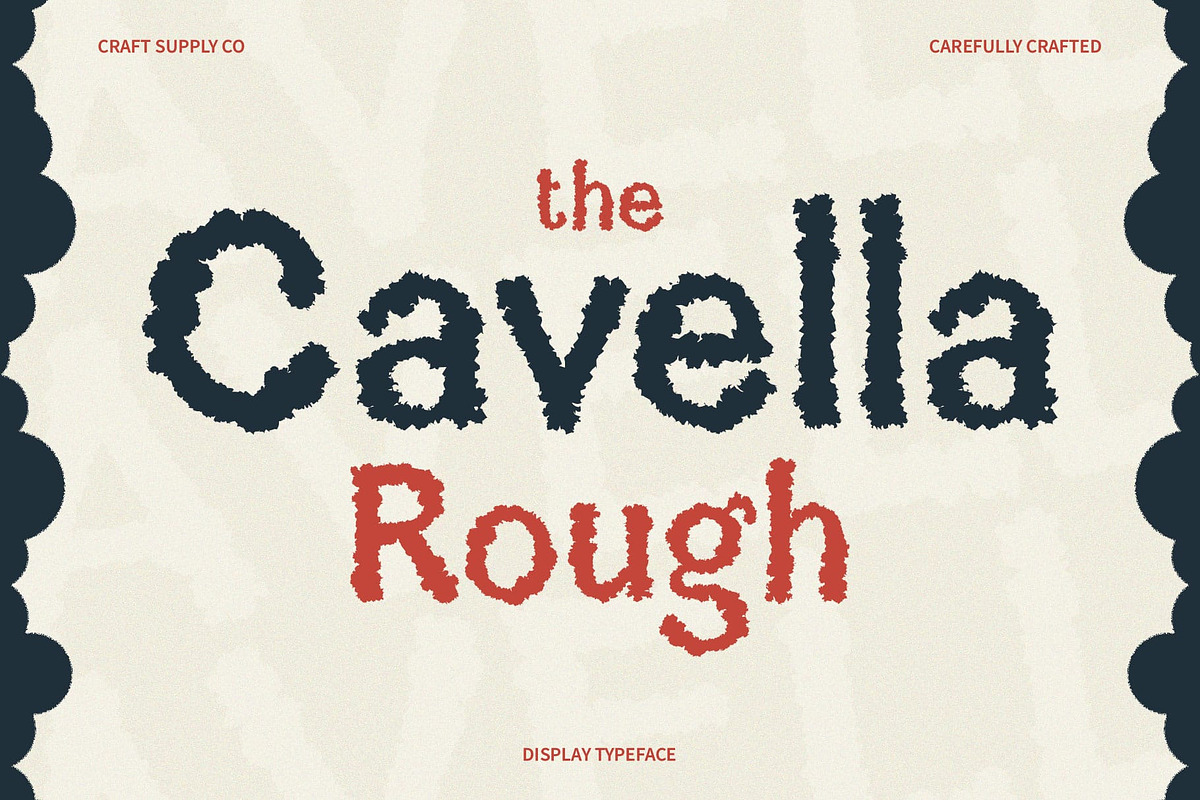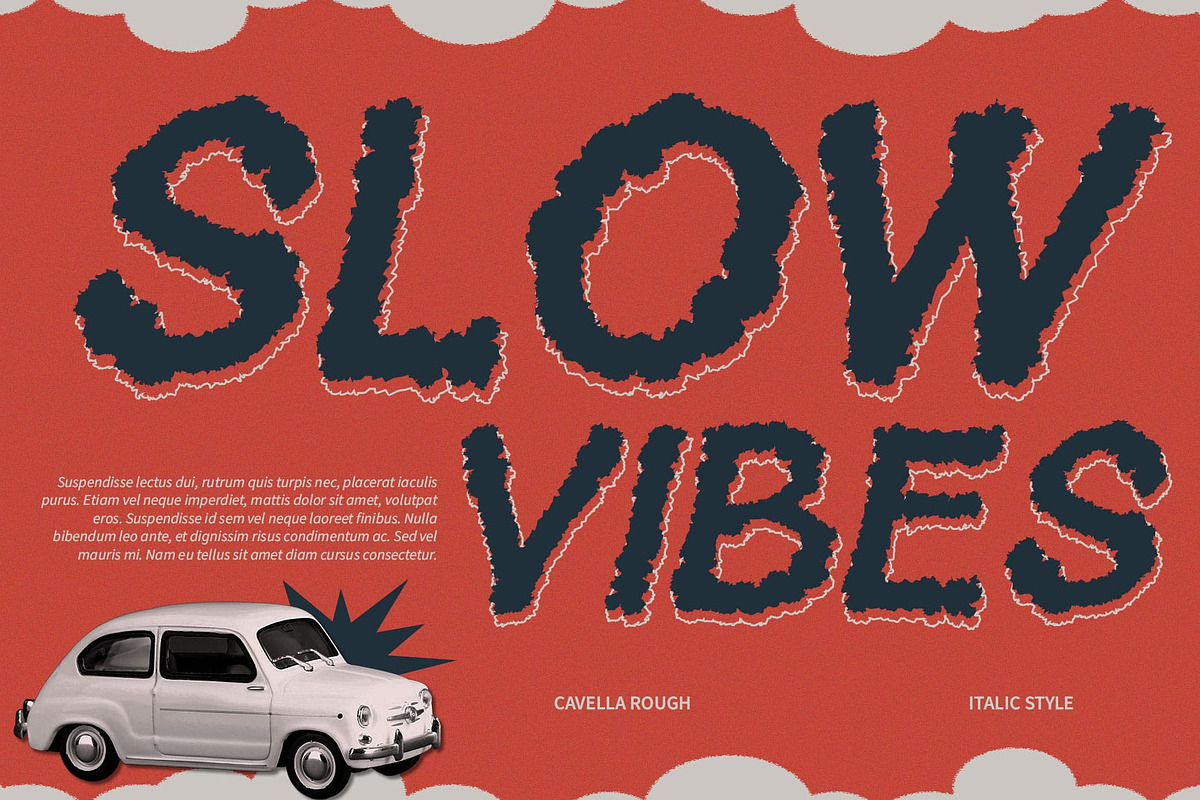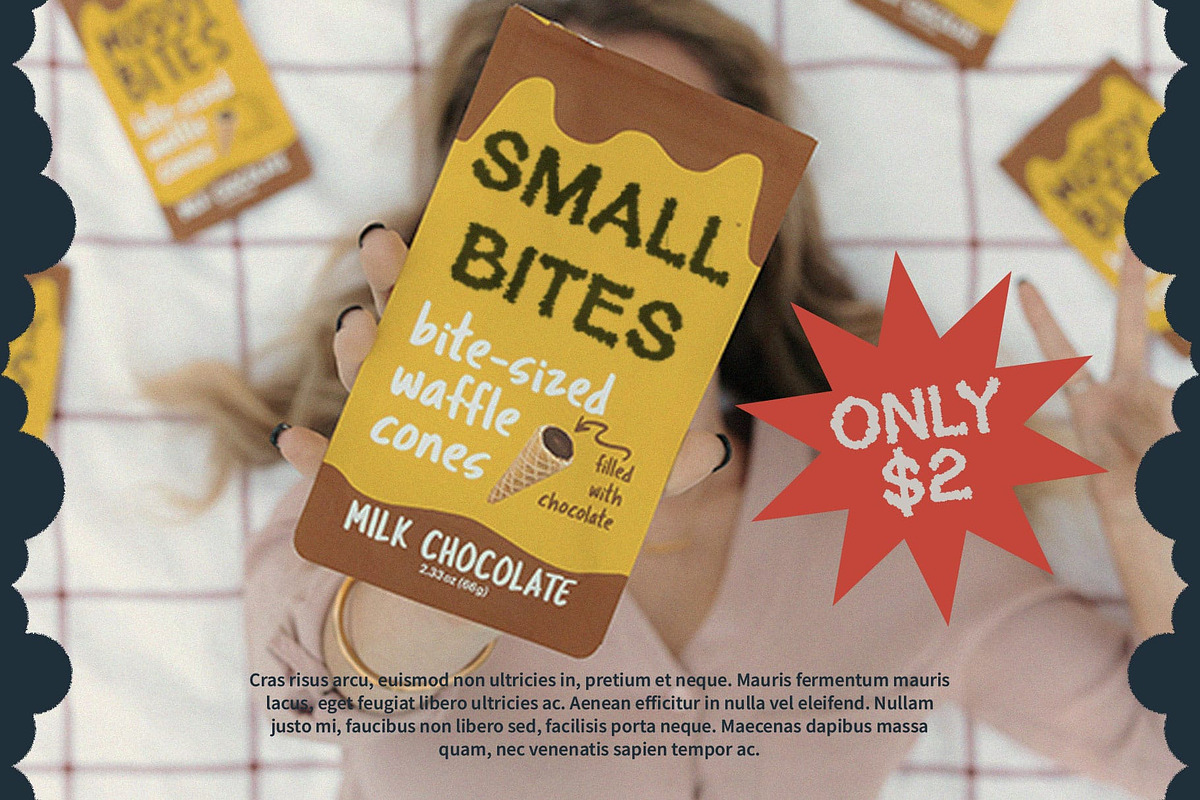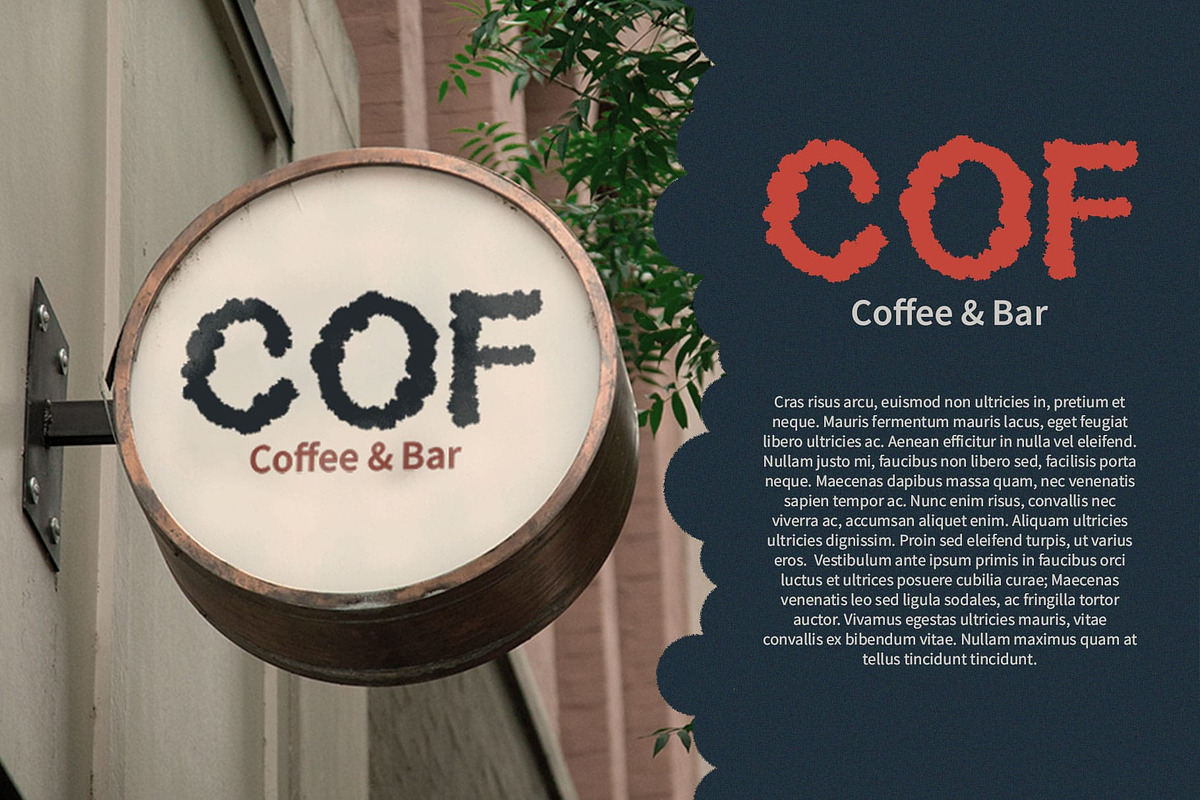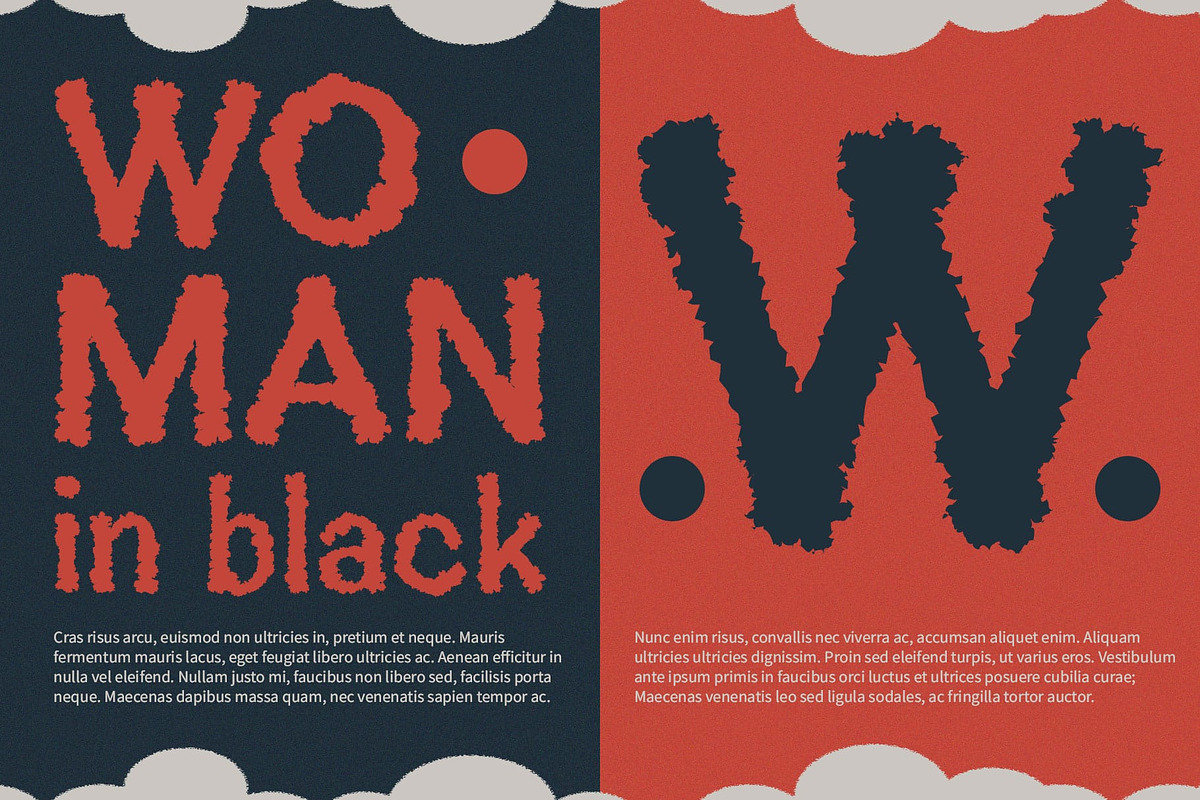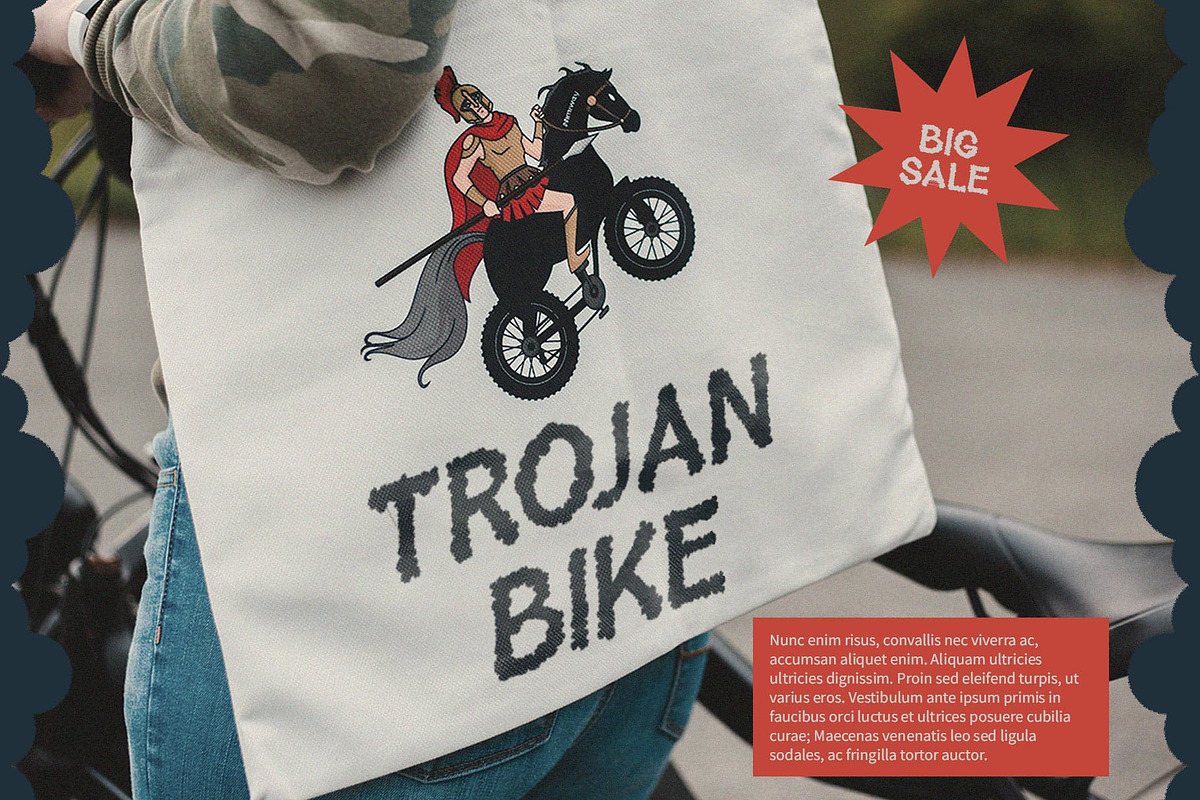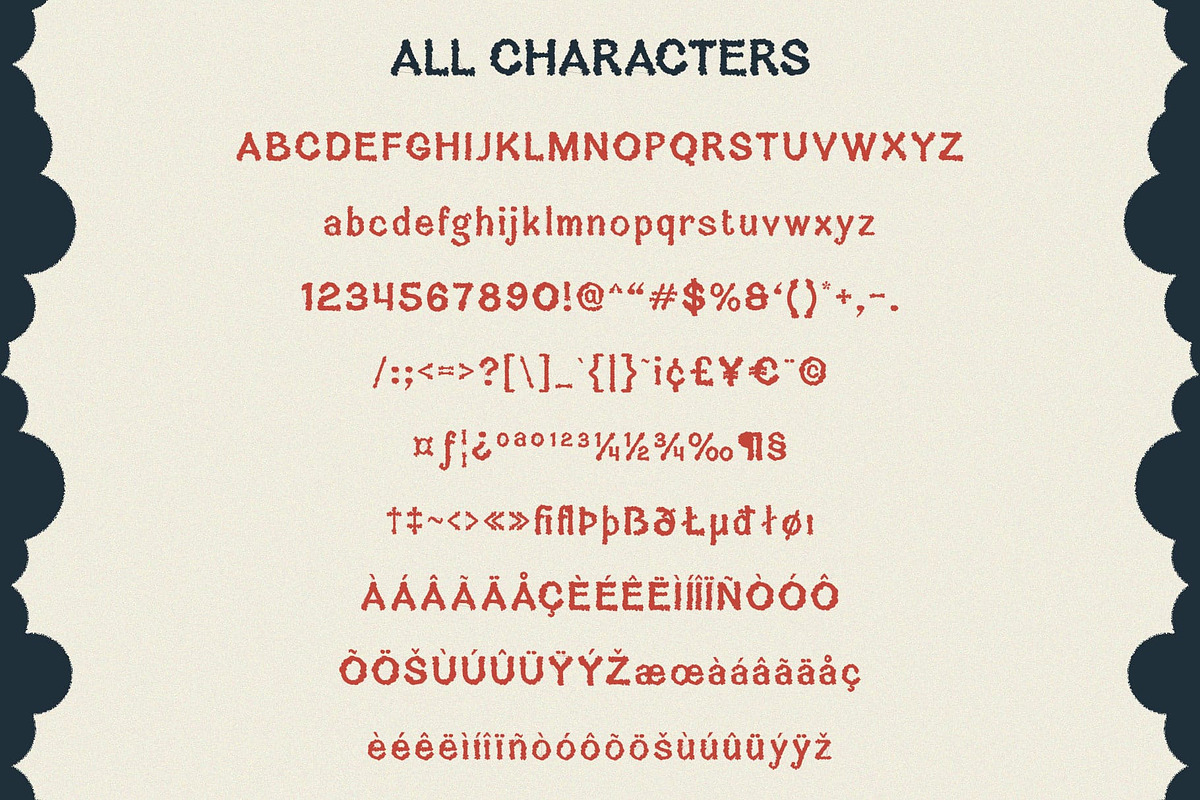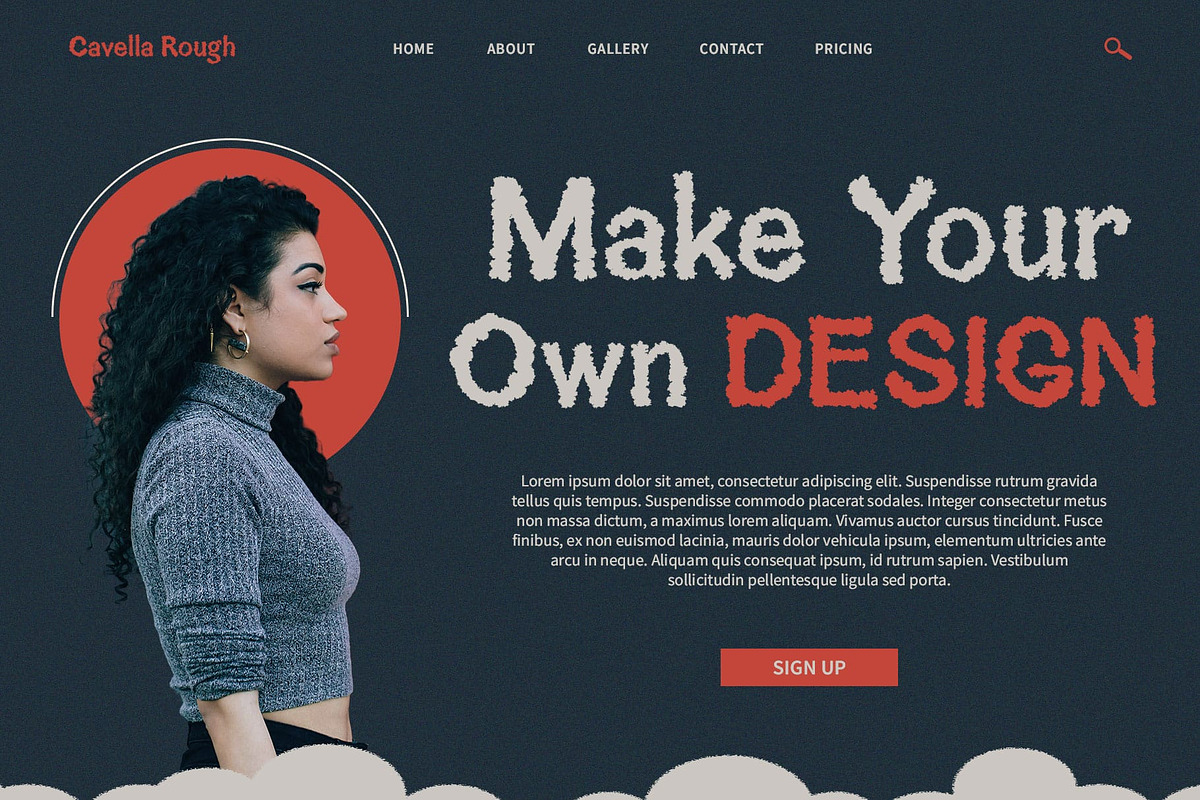
Cavella Rough
Cavella Rough: Inspired by the World of Cigarettes
Refreshing Essence of Cigarette Smoke Cavella Rough is a display font inspired by the world of cigarettes, featuring a design that resembles cigarette smoke. This unique inspiration adds a refreshing essence to typography, making it stand out with a distinctive and intriguing style.
Ideal for Captivating Displays Designed to captivate, Cavella Rough is perfect for headlines, banners, and other display purposes. Its design, inspired by cigarette smoke, ensures that your message is both seen and remembered.
Versatile and Impactful Despite its unusual inspiration, Cavella Rough is versatile and impactful. Its rough vibe and display font format make it suitable for a wide range of projects, from branding to digital designs, where a font with a strong visual impact is essential for making a statement.
Perfect for Adding an Intriguing Touch Cavella Rough is ideal for projects that require a font with an intriguing touch. Whether you’re designing a poster, logo, or website, this font will undoubtedly add a unique and memorable element to your designs.
- Cavella Rough Regular
- Cavella Rough Italic